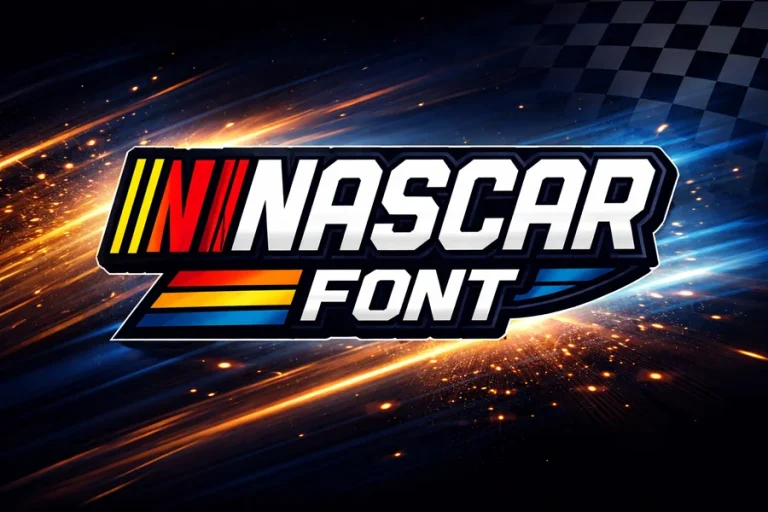
Nascar Font – History, Style, and How to Use It
The Nascar font has become one of the most recognizable styles in motorsports branding. The lettering is considered to be bold, tilted, and high-speed looking, a representation of NASCAR racing which is fast-paced. The typography is used in race cars, team logos, and promotional materials and merchandise to create the image of the sport.
While many people refer to a single “Nascar font,” the truth is that NASCAR’s branding has evolved over time. The various variations of the logos have employed a slightly varied typeface, but each with the aim of expressing speed, power and movement. The racing fans and designers usually seek similar fonts so that they can replicate that dynamic nature in their projects.
In this paper, we will have a closer look at the background of this popular typography, the features that make it distinguishable, the popular font substitutes, and how you can apply this style successfully in your designs.
The History Behind the Nascar Font
NASCAR is an acronym used to represent the National Association to Stock Car Auto Racing which was established in the year 1948. The organization has over the decades been shifting its branding a few times to stay abreast of the current trends in designing without forgetting its racing tradition.
The previously used NASCAR logos were plain block letterings which focused on clarity and strength. But as the sport became more popular, and marketing of the sport became a more significant issue, the logo and typography started to change into a more aesthetically appealing one.
The best-known one came in the beginning of the nineties. This logo had slanted texting and bright colored vertical lines. Even when at rest, the typography appeared to be fast; this was very well suited to the spirit of racing.
In 2017, NASCAR also unveiled one more revised logo that has a simpler design. The fonts were still bold and italicized but were more modern and clean. The stripes were kept in the image of the brand legacy; however, they were colorful.
These design evolution events demonstrate that NASCAR is able to modernize and renew their visual image without losing the main aspects which the fans can easily identify.
Key Design Characteristics of the Nascar Font
What makes the Nascar font so distinctive? There are a number of design features that co-operate to produce its iconic racing appearance.
The italic or slanted style is one of the most evident ones. The angled letters are perceived to be in a motion, a crucial element of a brand that is focused on speed and competitiveness.
The bold and thick letterforms are another characteristic. The typography is also strong so that the logo is still visible when it is placed on a fast-moving race car or a giant stadium banner.
The distance between the characters is also well balanced. The letters are slightly condensed so that the wordmark does not look stayinthewoods.com too big and loses its strength.
Lastly, the font tends to adopt clean geometric lines and not ornamental details. This simplicity renders the typography very adaptable and reproductive in the diverse mediums including television broadcasts to the digital graphics.
All these aspects combine to form a type style which conveys energy, performance and strength.
Popular Fonts Similar to the Nascar Font
The official NASCAR lettering cannot be made available publicly as a regular font file because it is in fact custom-designed. A number of typefaces, however, resemble the same appearance and feel.
ITC Machine is considered the most similar substitute. It has a heavy appearance and italic look which can be compared to bold racing style that is applied in the motorsport branding.
Another choice is Compacta that is commonly applied to sport graphics. The revived typeface along with its tall and squashed letterforms produce an effective visual effect, reminiscent of NASCAR-style typography.
United Sans and Trade Gothic Bold Condensed are also the most popular when a designer desires a sporty and modern appearance. These fonts are legible and yet provide the bold visual effect of athletic branding.
In choosing a similar typeface, one tries to preserve the element of movement and boldness involved in racing typography.
How Designers Use the Nascar Font Style
Designers often use the Nascar font style in projects that need to convey speed, excitement, or competitive energy.
Sports branding is one of the uses. Similar typography is often used by racing teams and esports organizations, as well as automotive brands, to focus on the aspects of performance and adrenaline.
The other common use is in event promotions. Bold, slanted letters on posters, banners, and digital advertisements of the racing events or car shows are an advantage because they immediately grab the attention.
Fonts such as ITC Machine, Compacta, and United Sans are often used as alternatives because they share the bold and condensed racing-inspired appearance.
Why is the Nascar font slanted?
The slanted design helps create a sense of motion and speed, which reflects the fast-paced nature of stock car racing.